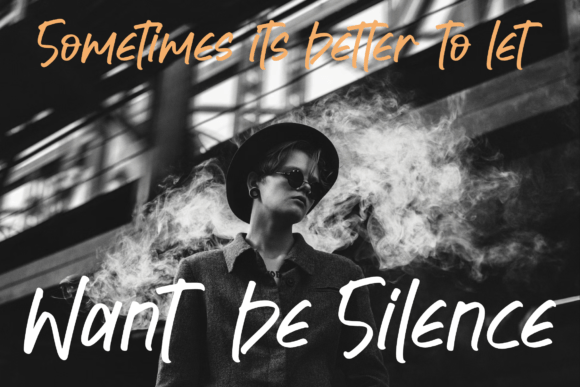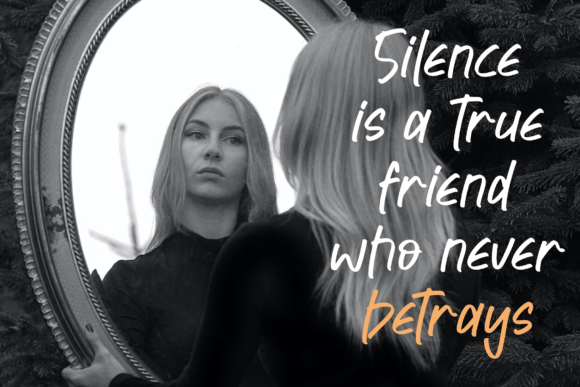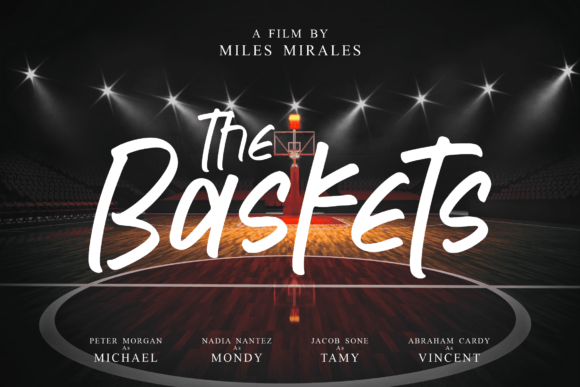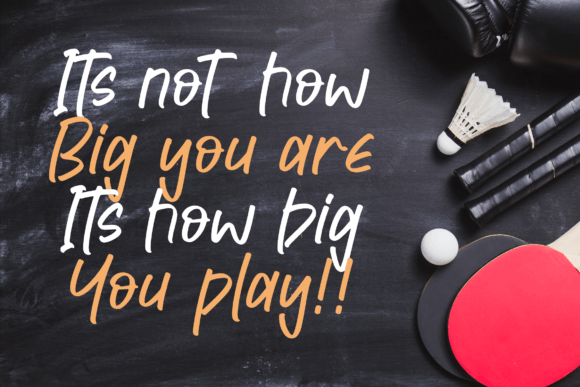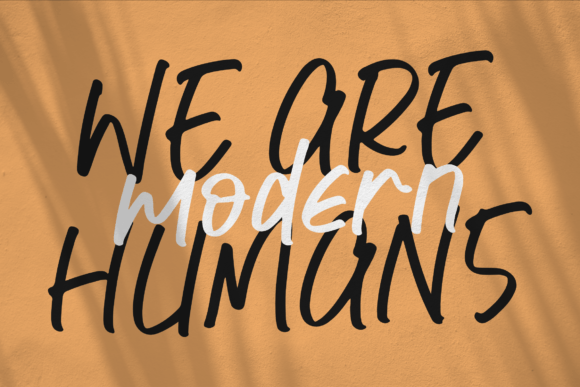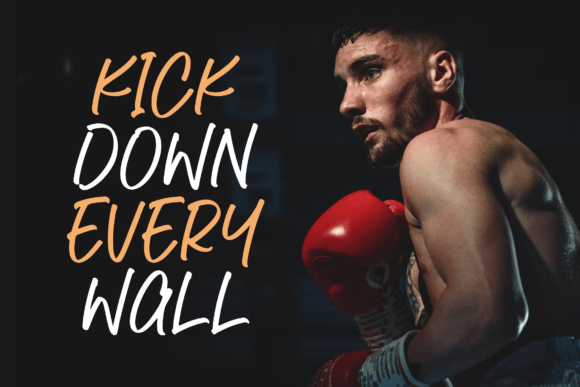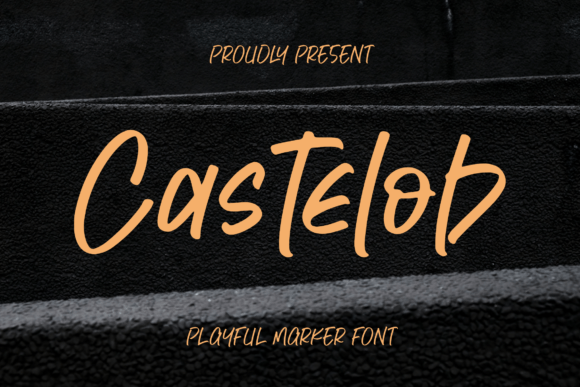
Introducing Castelob Font: The Perfect Playful and Modern Script Font for Your Creative Projects
Are you a designer or crafter looking for a font that can add a touch of playfulness and modernity to your projects? Look no further than Castelob Font! This beautiful script font is perfect for a wide range of creative endeavors, from logos and branding projects to homeware designs, product packaging, and more.
What Makes Castelob Font So Special?
Castelob Font is a unique and stylish script font that is sure to make your projects stand out. Its playful and modern design makes it perfect for adding a touch of whimsy and sophistication to any project. Whether you’re working on a logo, a poster, or a product design, Castelob Font is sure to bring a smile to your customers’ faces.
The Perfect Font for a Wide Range of Projects
Castelob Font is incredibly versatile and can be used for a wide range of projects, including:
- Logos and branding projects: Create a memorable and eye-catching logo that will help your brand stand out from the crowd.
- Homeware designs: Add a touch of elegance and sophistication to your homeware designs, from kitchen utensils to decorative plates.
- Product packaging: Make your product packaging stand out with a beautiful and unique font that will grab customers’ attention.
- Mugs and quotes: Create inspiring and stylish mugs and quotes that will make perfect gifts or decorations.
- Posters and shopping bags: Add a touch of playfulness and modernity to your posters and shopping bags.
- T-shirts and book covers: Create stylish and eye-catching t-shirts and book covers that will make your customers love them.
- Name cards and invitation cards: Make your name cards and invitation cards special with a beautiful and elegant font.
- Greeting cards and labels: Add a touch of sophistication and elegance to your greeting cards and labels.
- Photography and watermark: Use Castelob Font as a watermark for your photos or add it to your photography projects for a touch of style.
- Special events: Create beautiful and memorable designs for special events, such as weddings, birthdays, and anniversaries.
Why Choose Castelob Font?
There are many reasons why Castelob Font is the perfect choice for your creative projects:
- Unique and stylish design: Castelob Font has a unique and stylish design that will make your projects stand out.
- Playful and modern: This font has a playful and modern design that will add a touch of whimsy and sophistication to any project.
- Easy to read: Despite its playful design, Castelob Font is easy to read and will make your text clear and legible.
- Versatile: This font can be used for a wide range of projects, from logos and branding projects to homeware designs and product packaging.
- High-quality: Castelob Font is a high-quality font that will make your projects look professional and polished.
Here are some tips for using Castelob Font:
- Use it as a headline font: Castelob Font is perfect for headlines and titles, so use it to add a touch of playfulness and modernity to your designs.
- Pair it with other fonts: Experiment with pairing Castelob Font with other fonts to create a unique and stylish design.
- Use it in different colors: Don’t be afraid to experiment with different colors and textures to add depth and interest to your designs.
Castelob Font is a beautiful and versatile script font that is perfect for a wide range of creative projects. Its playful and modern design makes it a great choice for designers and crafters who want to add a touch of whimsy and sophistication to their work. With its ease of use and high-quality design, Castelob Font is sure to become a favorite in your font collection.